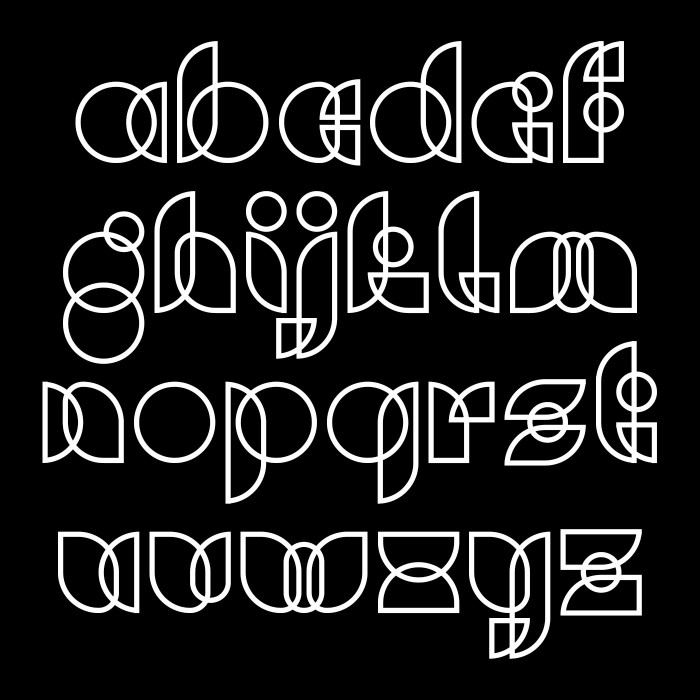
Another eye-catching design, the overlapping style is quite clever~
very cool!
I l❤️❤️❤️ve this kind of fonts! Congrats, compa!
Very creative. Love the bubbly look to it.
it's nice ig
the more i look at this font, the more i find it cool/clever. i really like it a lot!